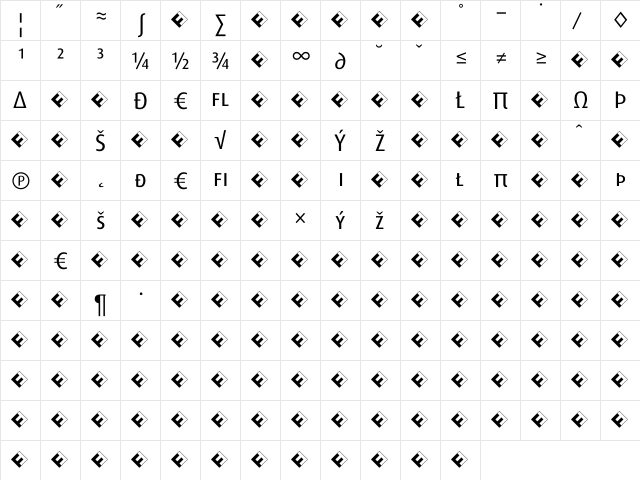
Dax-RegularCapsExp Regular
Design Context for Dax-RegularCapsExp Typeface
Dax-RegularCapsExp offers clean, dependable letterforms without strong stylistic allegiance, making it a practical choice for designers who need flexibility.